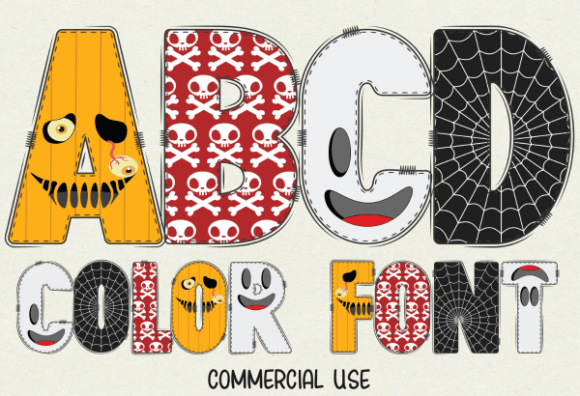
Introducing the Halloween Pumpkin Font, a colorful and captivating font designed to elevate your creative projects and make them truly stand out! Created by PX SHOP, this font is the perfect choice for those seeking the best font for professional Halloween, horror, or cute work.
With its cute and fun Halloween-styled detailed design, the Halloween Pumpkin Font brings a delightful touch to any project. Whether you're designing spooky invitations, creating whimsical posters, or crafting eye-catching social media graphics, this font is sure to add a touch of magic.
When you download the Halloween Pumpkin Font, you're not just getting a font – you're unlocking a world of endless possibilities. Let your imagination run wild as you incorporate this font into your creative ideas. Watch as your projects come to life with a touch of Halloween charm and personality.
But don't just take our word for it. Experience the magic of the Halloween Pumpkin Font for yourself and see why it's the go-to choice for professionals and enthusiasts alike. Stand out from the crowd, leave a lasting impression, and create designs that truly capture the spirit of Halloween.